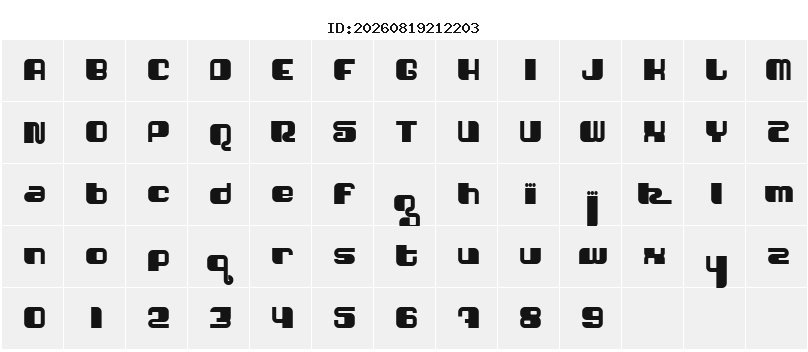
Shatner Preview
• Font Name: Shatner
• Full Font Name: Shatner
About Shatner.ttf
Shatner.ttf is a modern, elegant sans-serif font designed for ultimate readability and visual harmony. Perfect for branding, headlines, web design, and print materials.